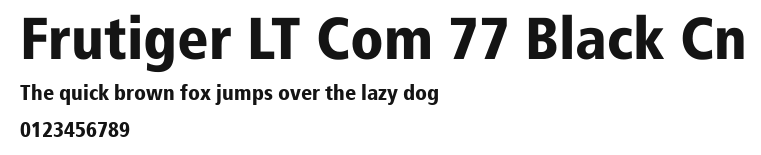
• Designer: Adrian Frutiger
• Manufacturer: Linotype GmbH
• Description: In 1968, Adrian Frutiger was commissioned to develop a sign and directional system for the new Charles de Gaulle Airport in Paris. Though everyone thought he would want to use his successful Univers font family. Frutiger decided instead to make a new sans serif typeface that would be suitable for the specific legibility requirements of airport signage: easy recognition from the distances and angles of driving and walking. The resulting font was in accord with the modern architecture of the airport. In 1976, he expanded and completed the family for D. Stempel AG in conjunction with Linotype, and it was named Frutiger. The Frutiger family is neither strictly geometric nor humanistic in construction; its forms are designed so that each individual character is quickly and easily recognized. Such distinctness makes it good for signage and display work. Although it was originally intended for the large scale of an airport, the full family has a warmth and subtlety that have, in recent years, made it popular for the smaller scale of body text in magazines and booklets. See also the new revised version Frutiger Next from the Linotype Platinum Collection.
Frutiger LT Com 77 Black Cn.ttf is a modern, elegant sans-serif font designed for ultimate readability and visual harmony. Perfect for branding, headlines, web design, and print materials.